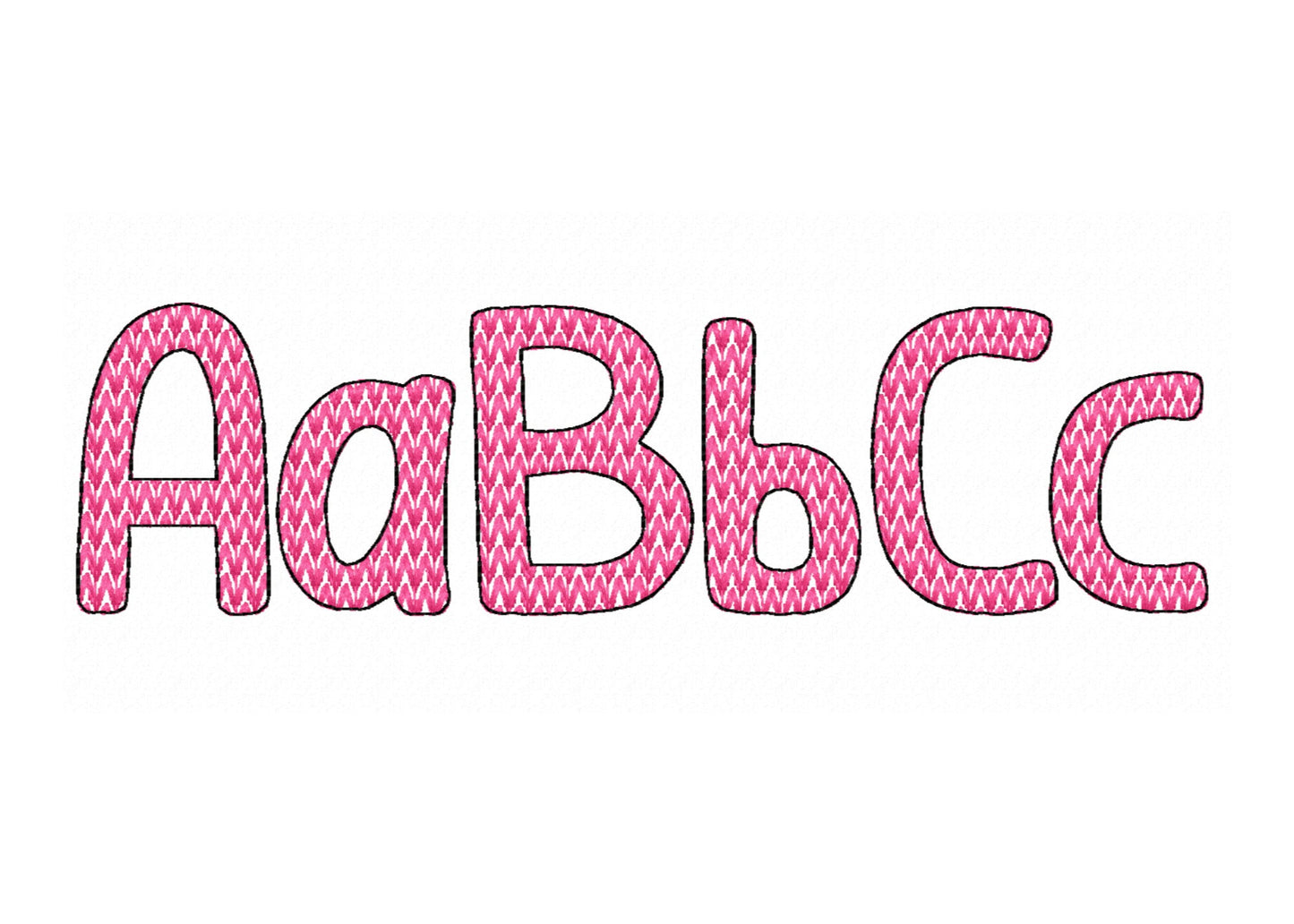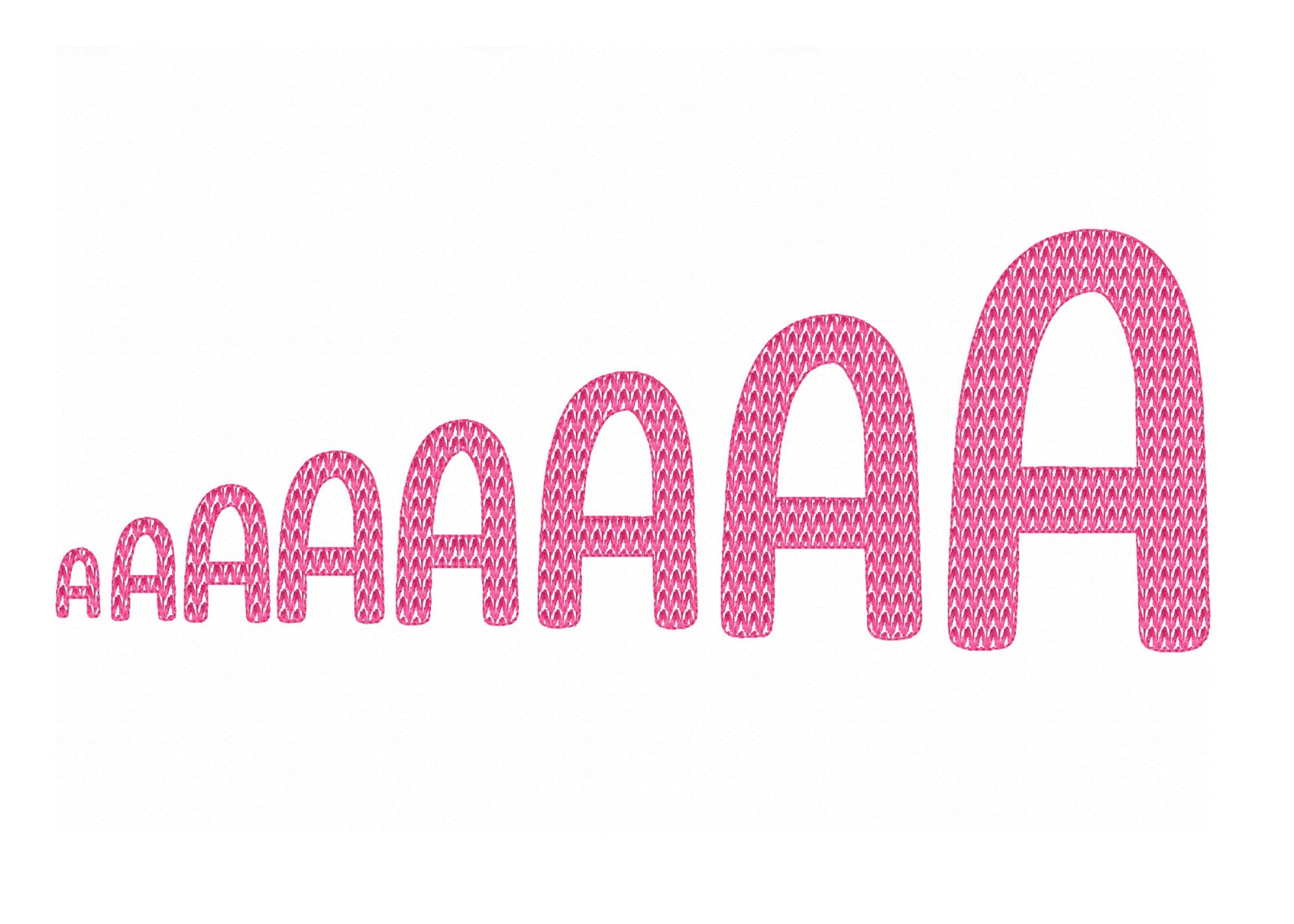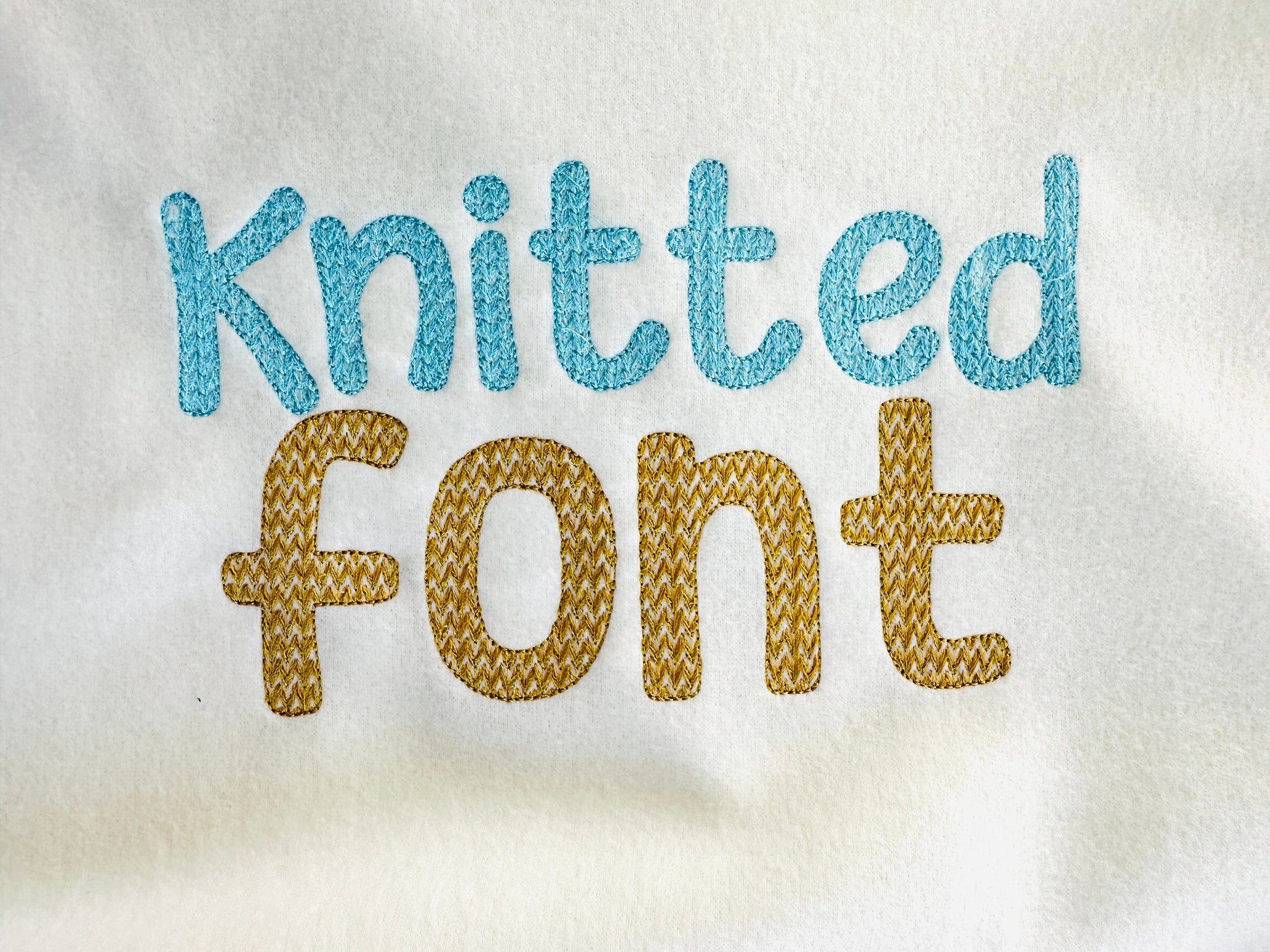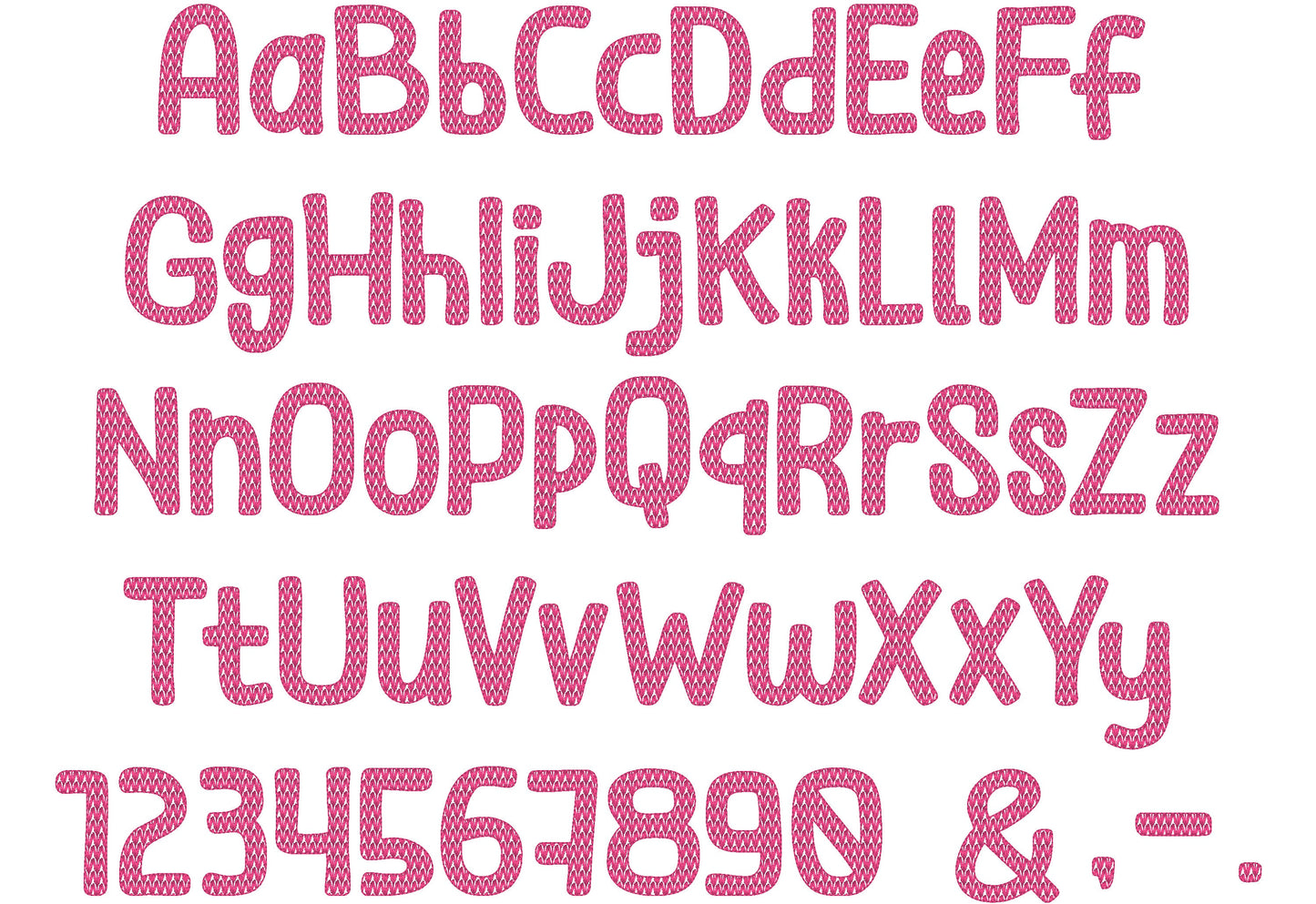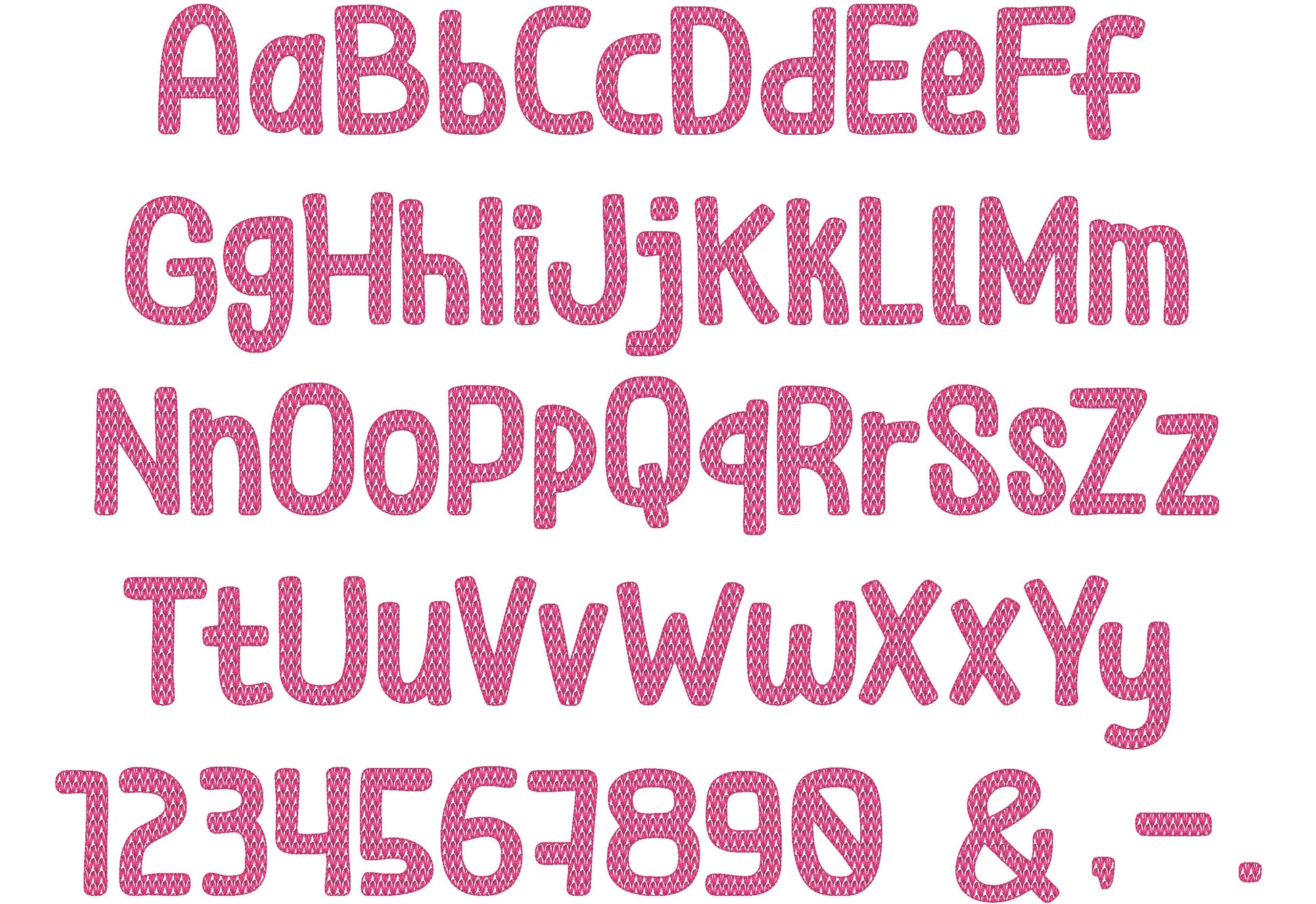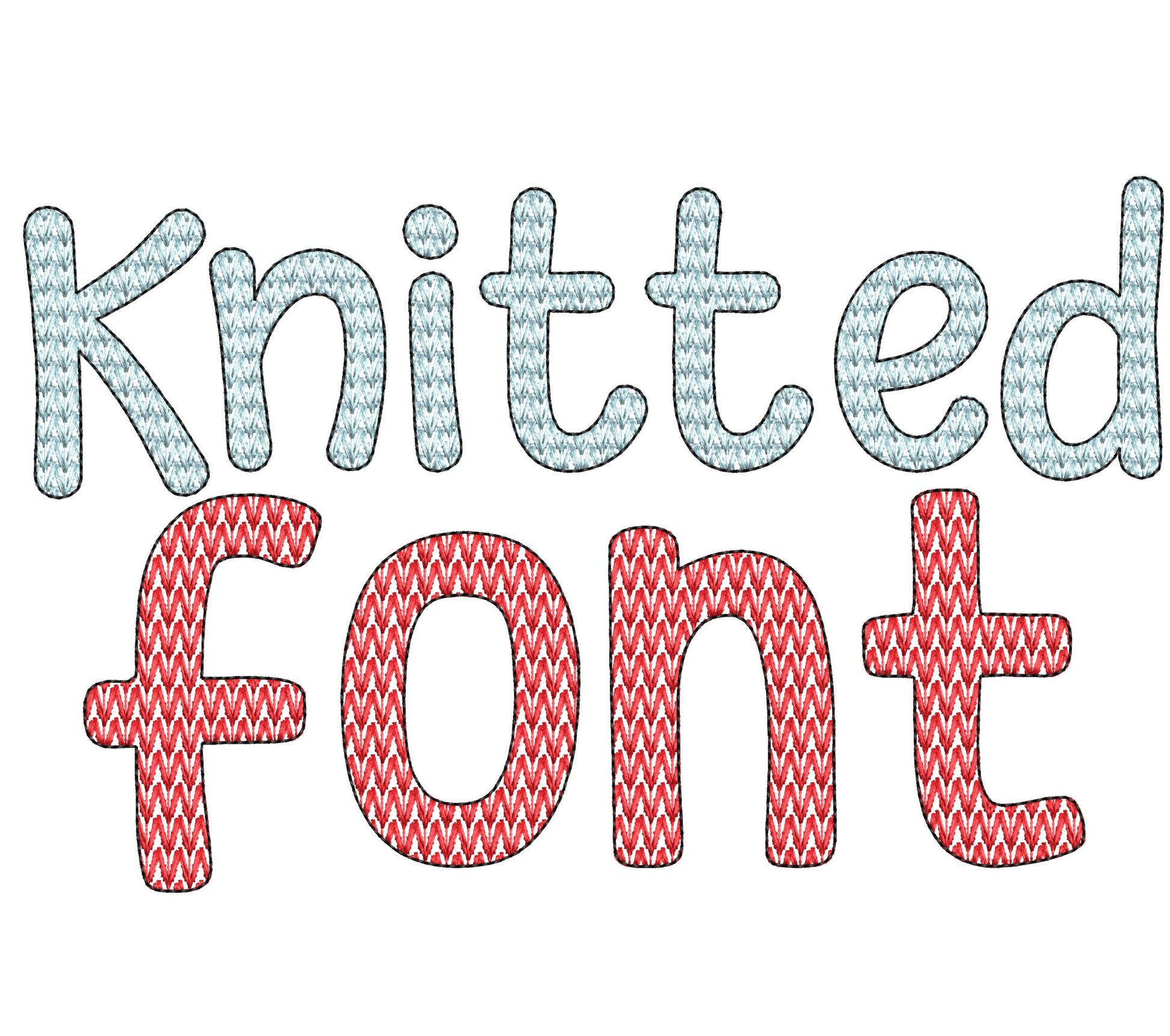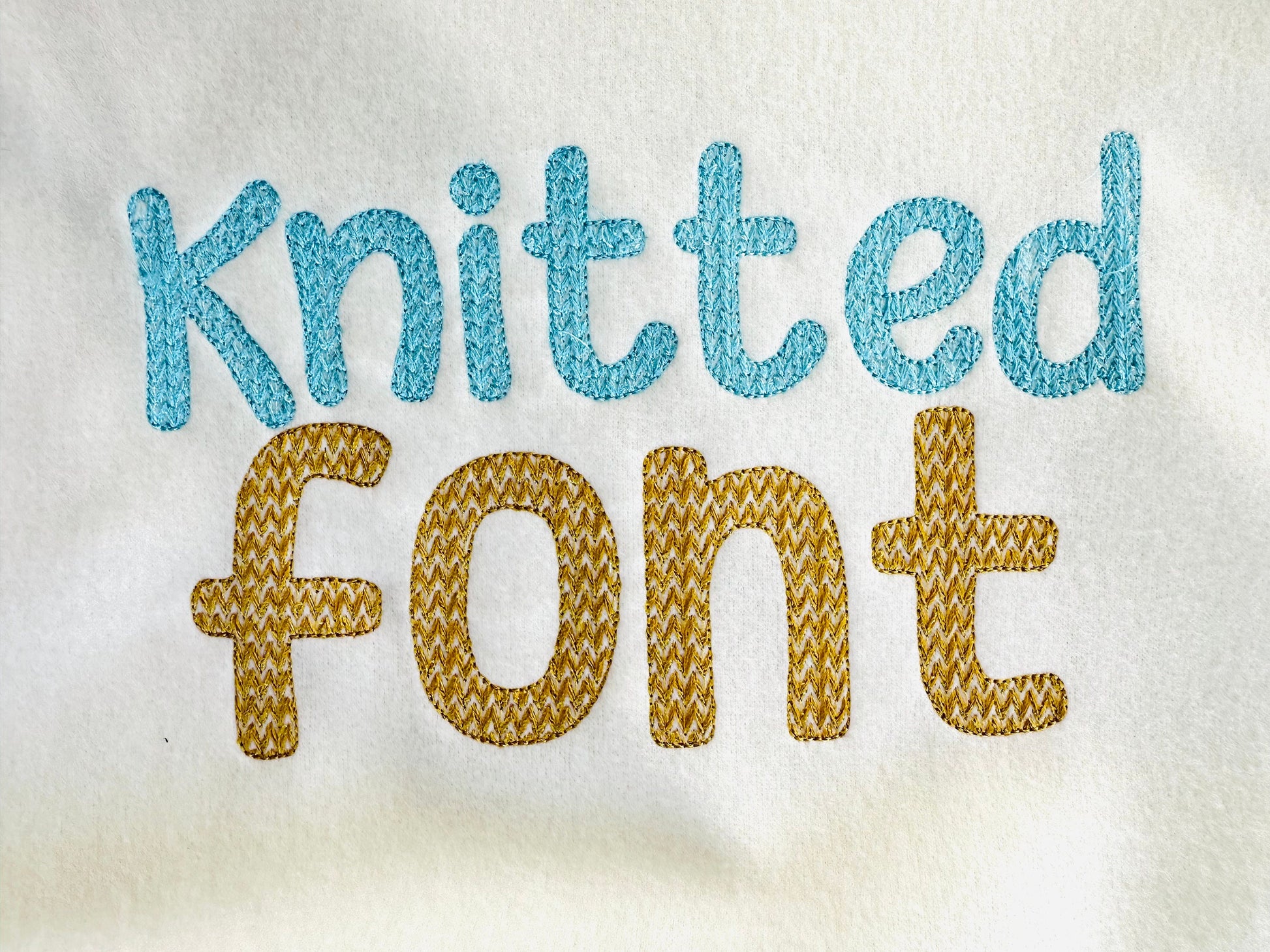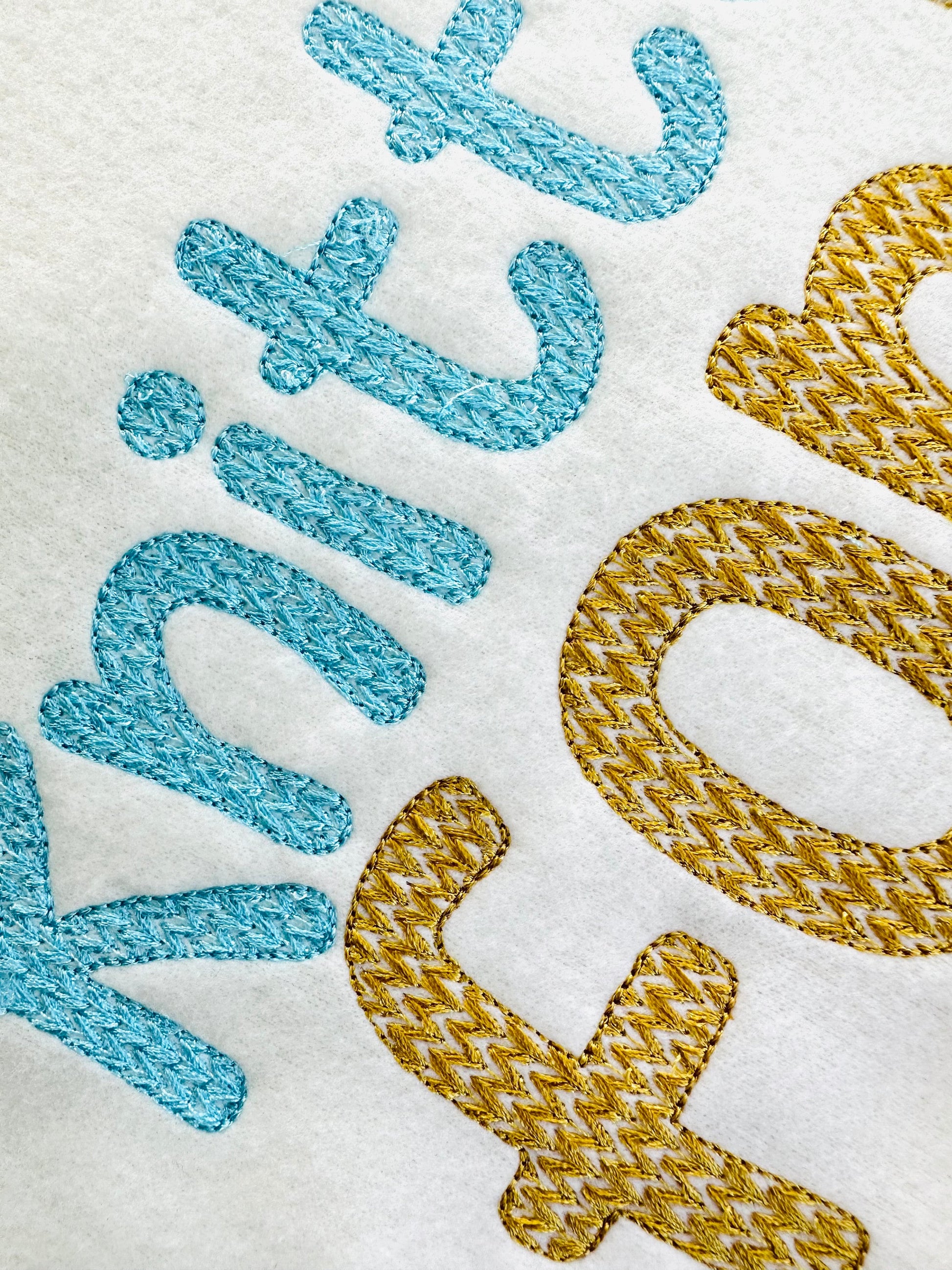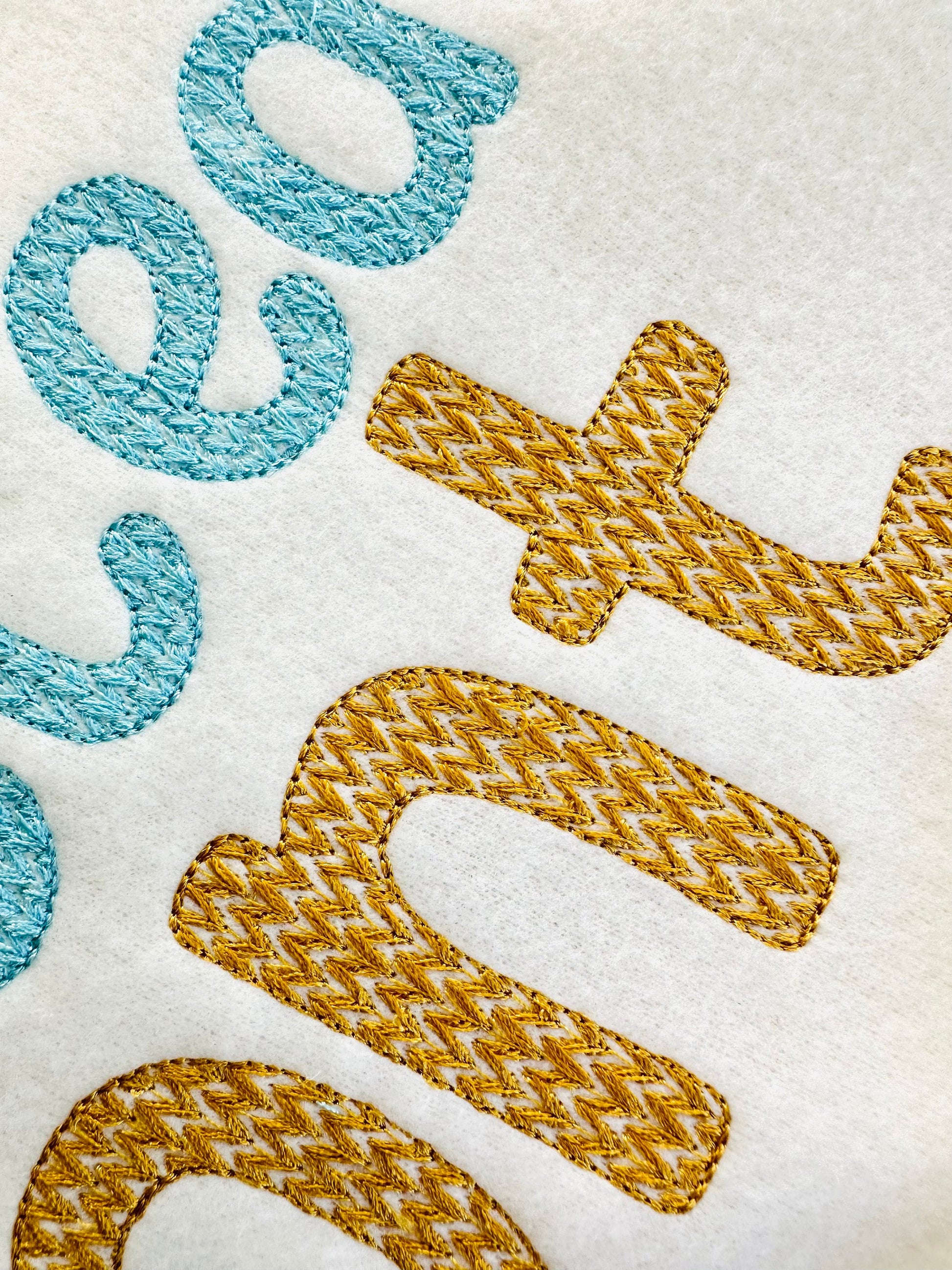
Knit Stitch Font
The letters come in eight sizes: 0.8, 1.2, 1.5, 2, 2.5, 3, 3.8 and 5 inches. The knit stitch pattern is part of each letter, so it looks like a hand-knitted sweater. Includes uppercase and lowercase letters A to Z, numbers 0 to 9 and the signs & . , -
- Knit sweater texture font
- Uppercase and lowercase letters, numbers 0 to 9, & . , -
- 8 sizes, 0.8 to 5 in